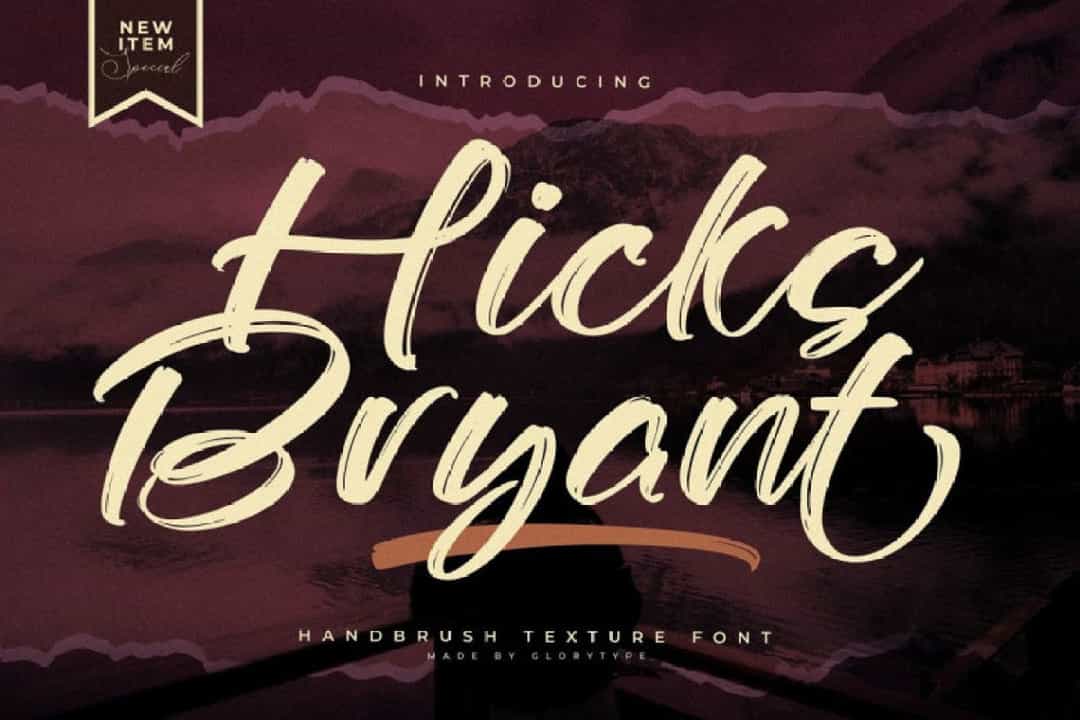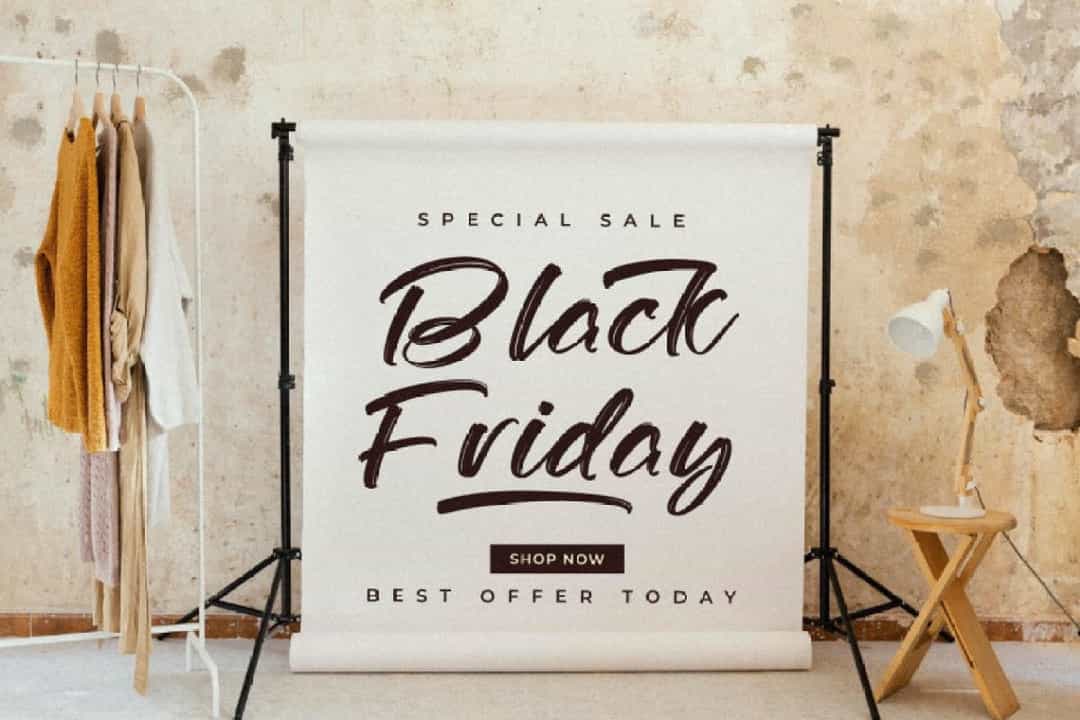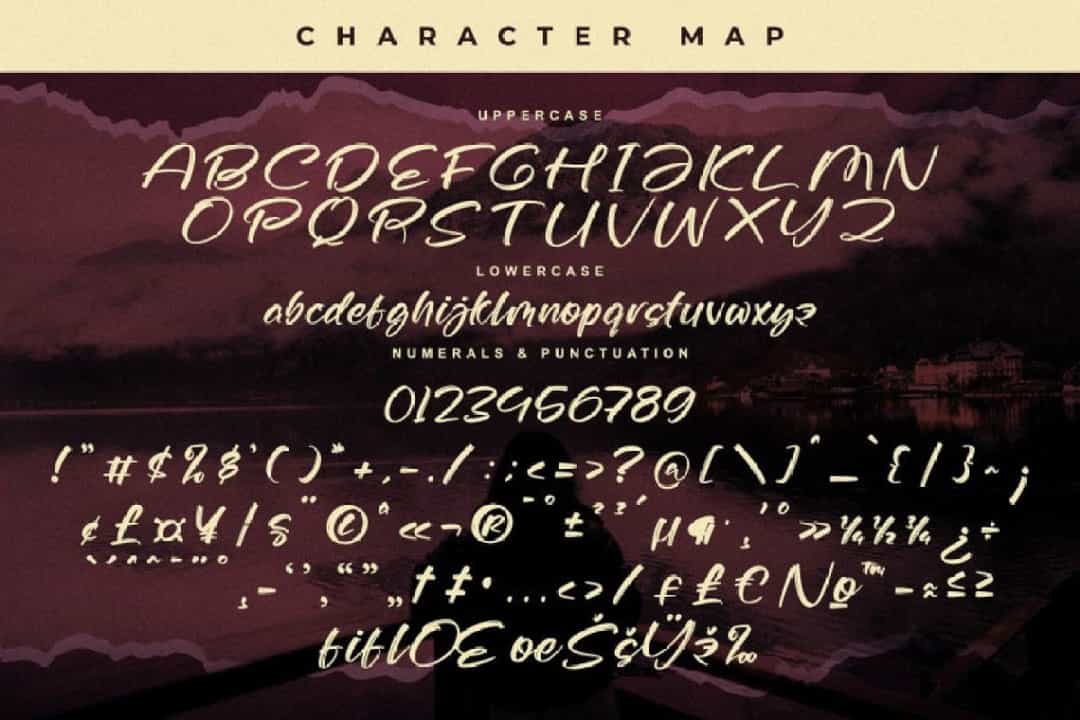
Hicks Bryant is a unique hand-written font designed with great care to be an enduringly popular option. Retaining classic calligraphic features while remaining contemporary and modern, get Hicks Bryant to take your work to new levels!